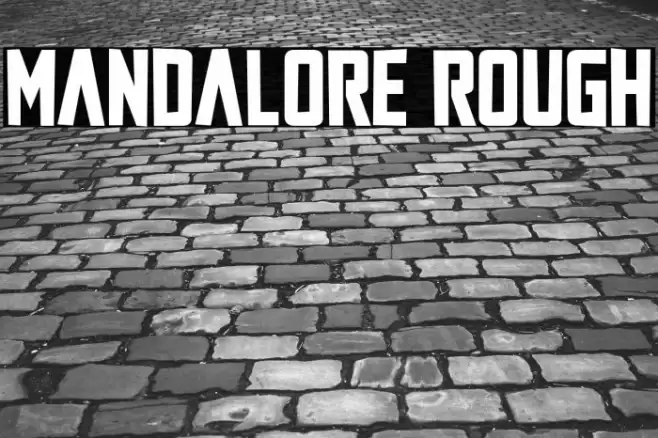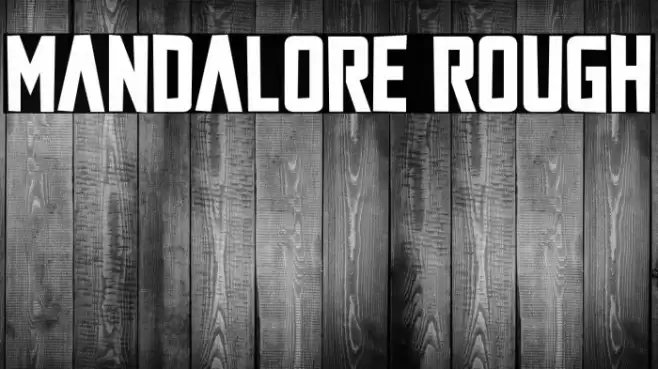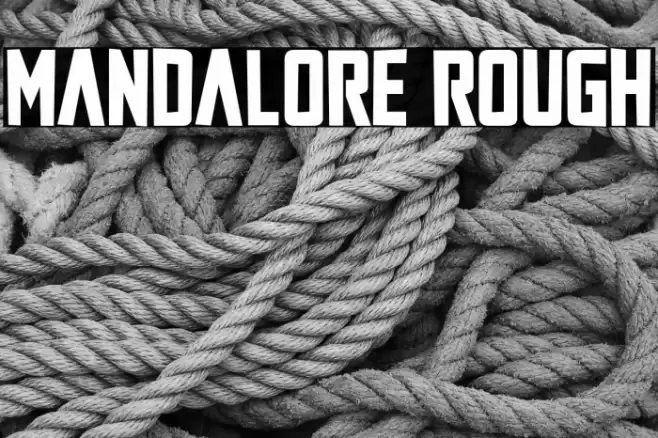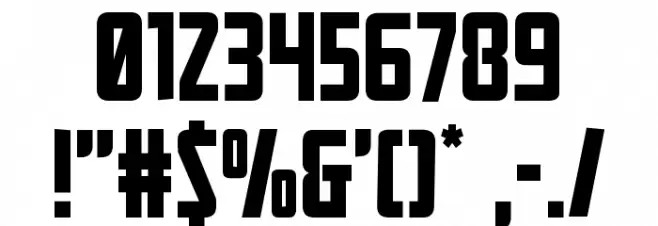
Mandalore Rough Font
Mandalore Rough Description
This font features a bold, angular design with a rugged and adventurous aesthetic. The uppercase letters are characterized by sharp edges and a blocky structure, giving them a strong and commanding presence. The lowercase letters maintain the same boldness, with a slightly more compact form. Numbers are consistent with the overall style, offering a clear and impactful appearance. Special characters are designed to complement the boldness of the alphabet, ensuring a cohesive look across all elements. The font's unique style is enhanced by the inclusion of silhouette graphics within certain letters, adding a distinctive and thematic touch.
A bold, angular font with a rugged and adventurous style from Uncategorized fonts.
- Font: Mandalore Rough
- Proposed Projects: Ideal for projects requiring a strong, thematic presence such as movie posters, video game titles, or themed event branding.